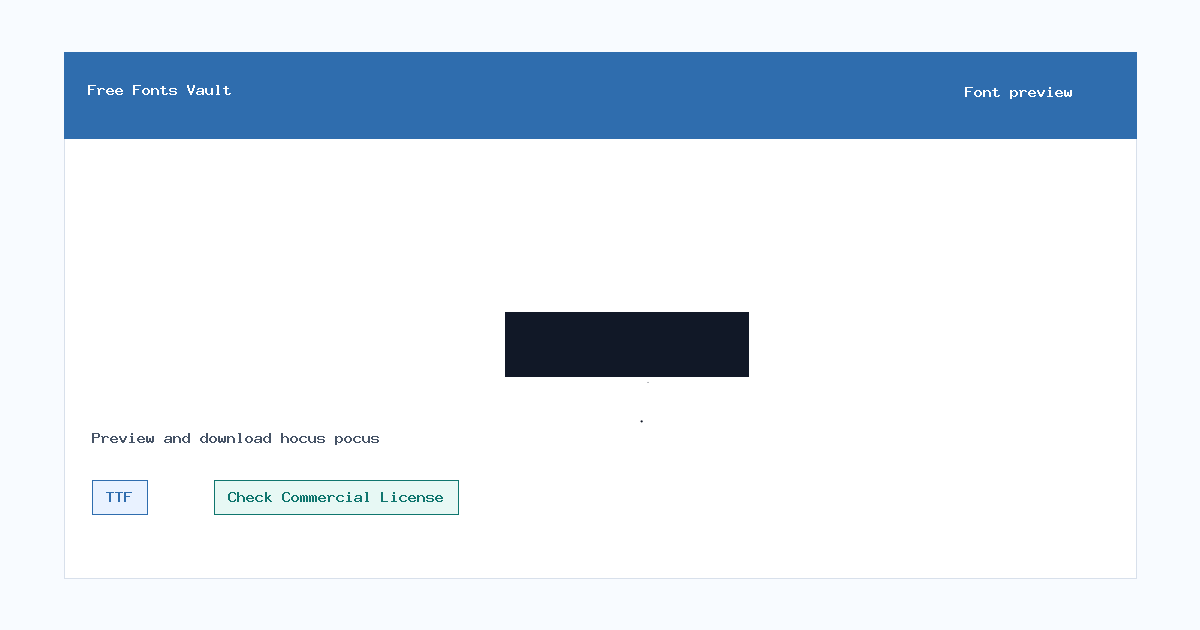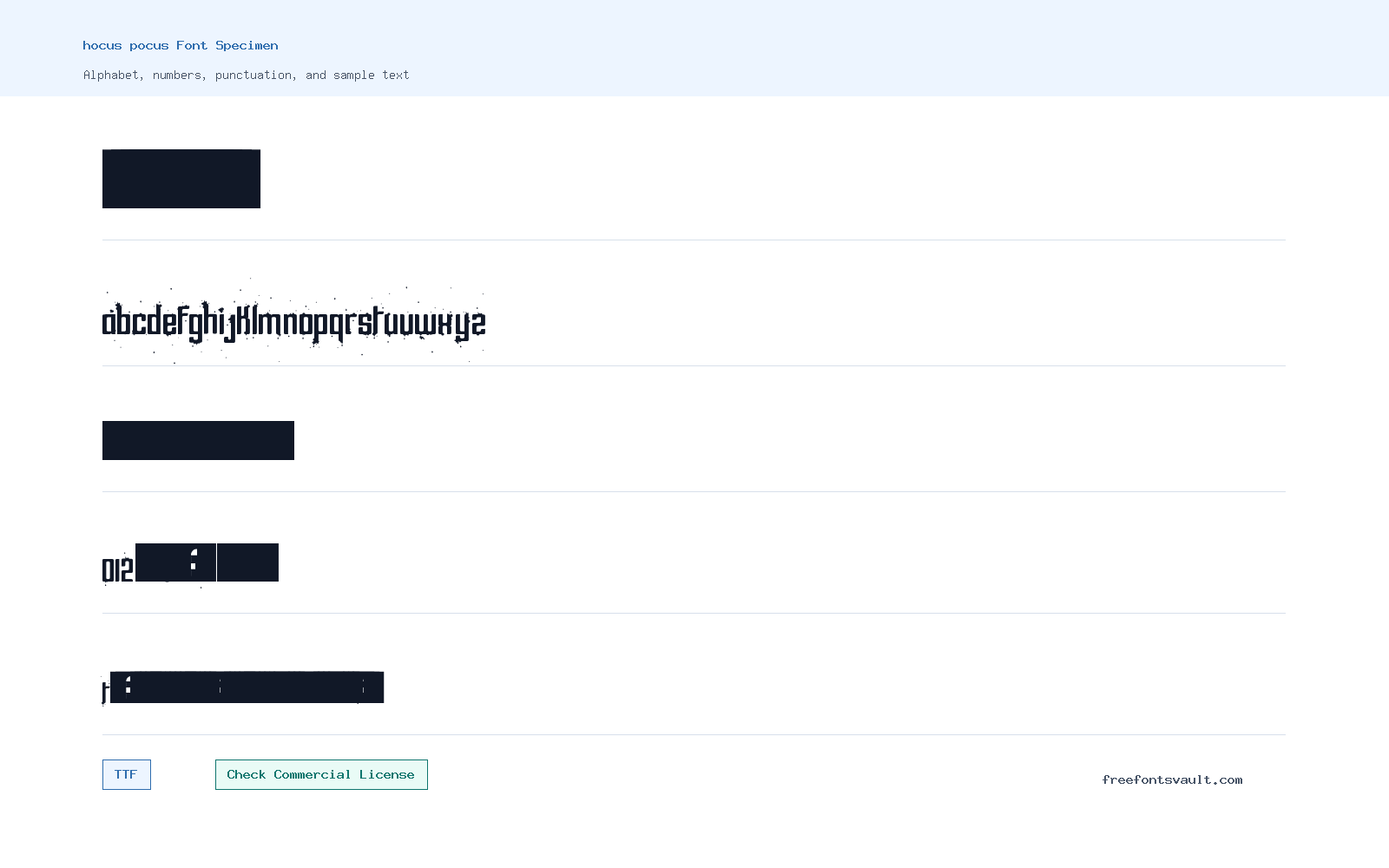
hocus pocus
hocus pocus Font
About hocus pocus
hocus pocus has a name that points toward playful, magic-themed display use. Because the font is offered as a regular TrueType file, it should be easy to test in common design apps, word processors, and browser previews that support TTF fonts.
• Suited to short display text after preview testing
• Magic-themed titles and headings
• Halloween or party graphics
• Craft labels and small printable designs
• Short decorative text in posters or social images
Preview the font at the size you plan to use. Decorative fonts can look clear in large titles but become harder to read in small body text, so pair it with a plain sans serif or serif for paragraphs, captions, and instructions. For readability, keep hocus pocus to a few words at a time. If the phrase is more than one short line, set the important details, dates, or instructions in a plain companion font and use hocus pocus only as the decorative heading. Also check whether the mood of the letters matches the audience. A playful theme font can be perfect for a headline, but the same style may feel distracting in instructions, addresses, or small-print details. Keep the decorative title simple.
Who designed hocus pocus?
The font is credited to haeleo.
What is hocus pocus best used for?
Use it for short display text such as titles, labels, posters, party graphics, and themed designs. Test longer text in the preview before using it.